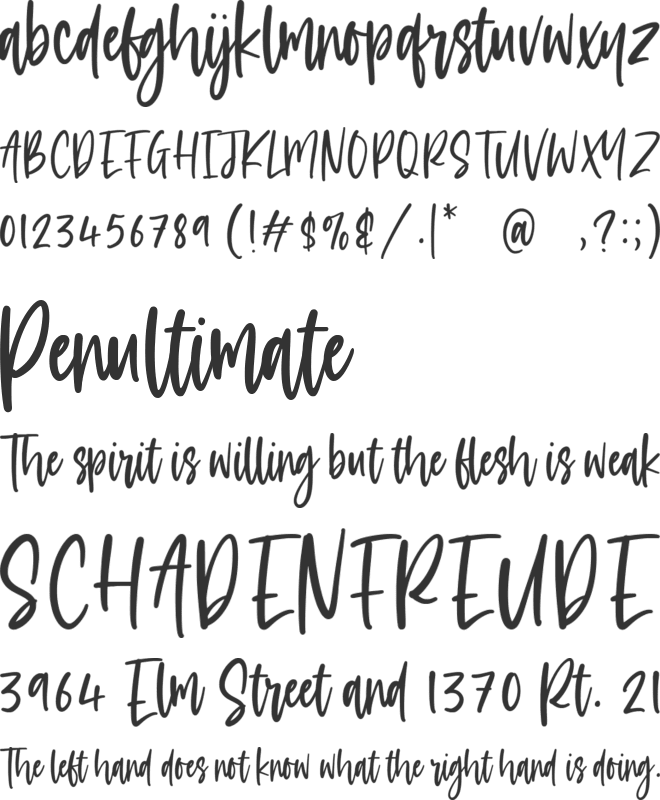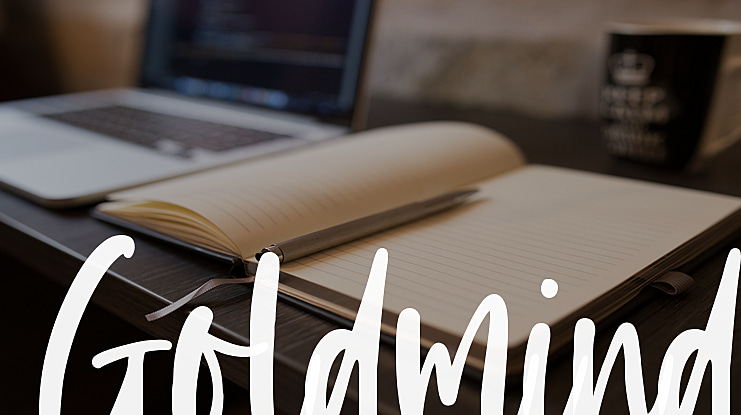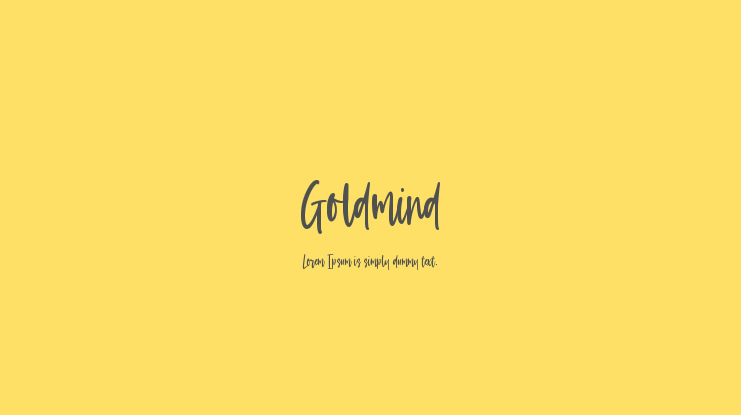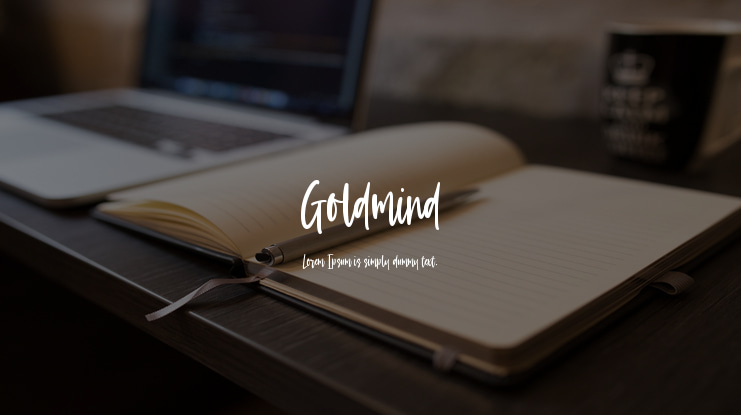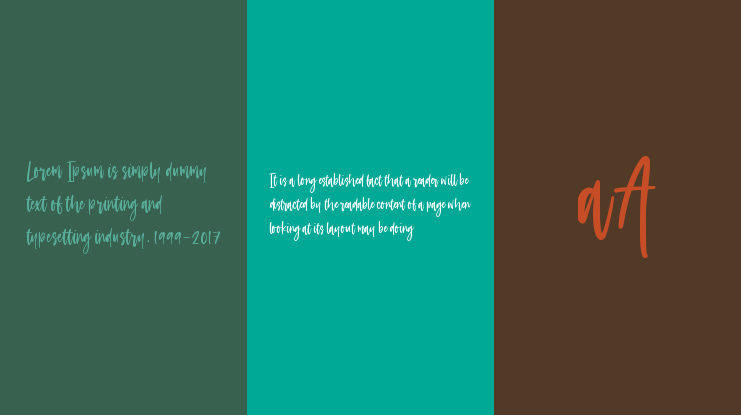
Goldmind Font
Goldmind is a Modern Calligraphy font.
Goldmind is perfect for product packaging, branding project, megazine, social media, wedding, or just used to express words above the background.